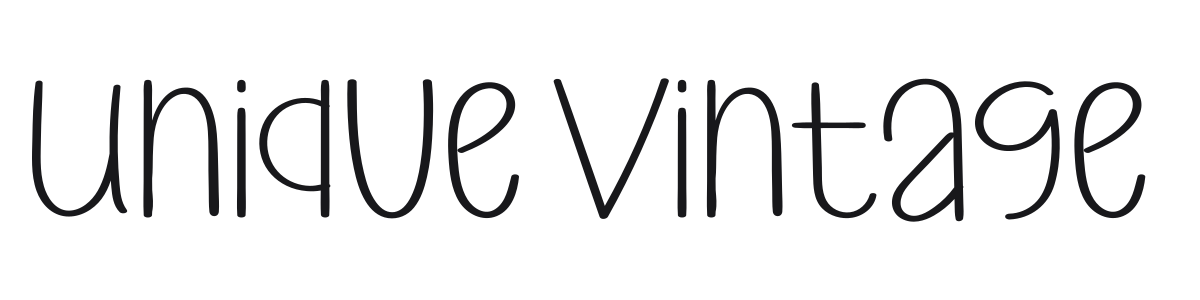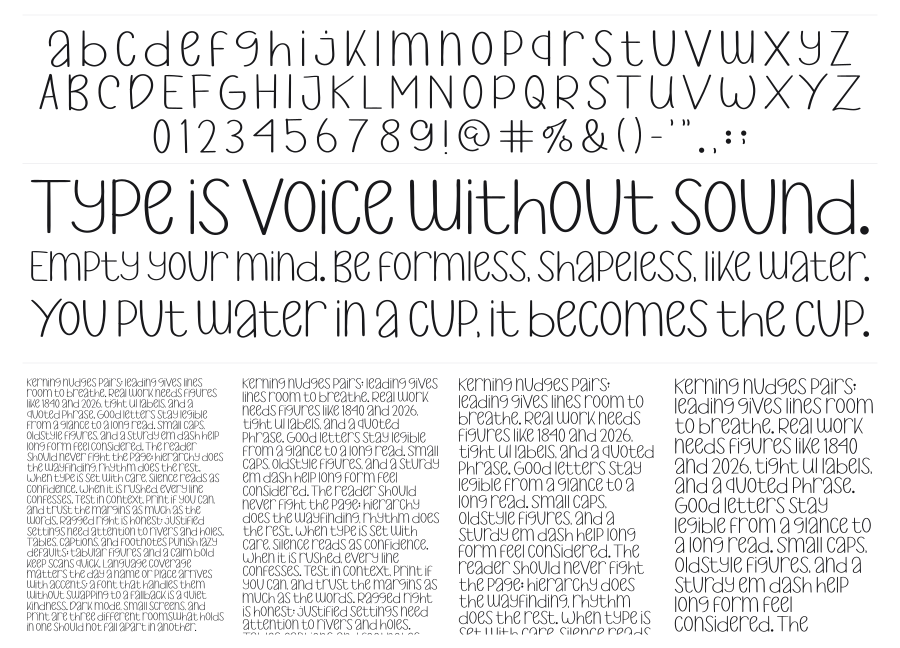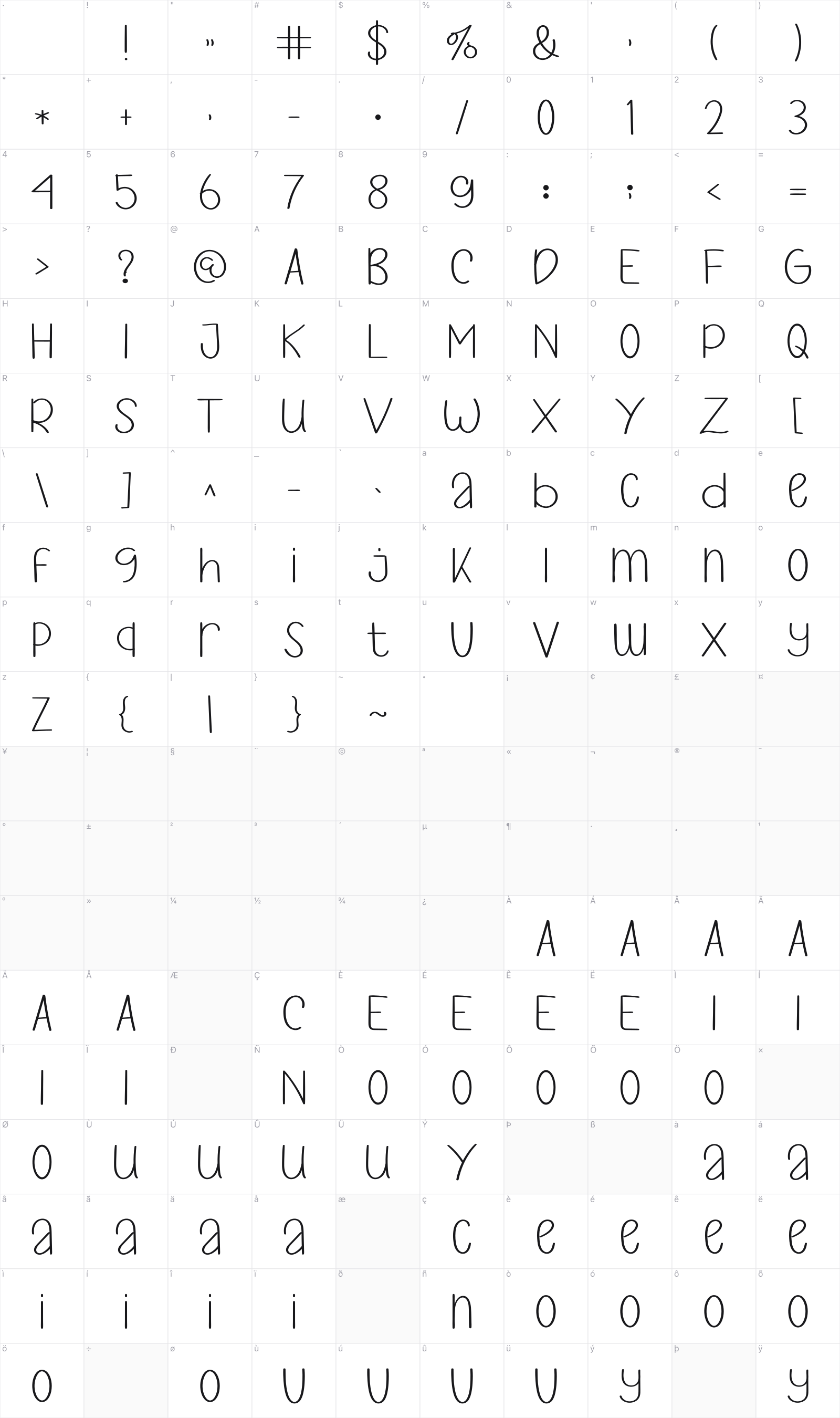
Unique Vintage
Unique Vintage is a light, narrow sans-serif with a hand-lettered, retro personality built from a charming mix of rounded and angular characters. The alternating case treatment and loose construction give it the feel of a boutique sign or artisan label. It carries warmth and whimsy without losing legibility at display sizes.